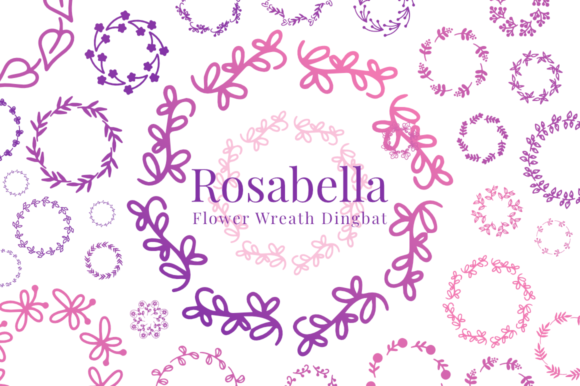
Introducing Rosabella Font, the crowning jewel of your design arsenal. This enchanting dingbats font, meticulously crafted by Letterayu, is a symphony of elegance and versatility. With its intricate strokes and captivating glyphs, Rosabella promises to transform your creative visions into masterpieces.
Unleash the boundless potential of Rosabella and let your imagination soar. Its delicate charm is ideally suited for wedding invitations, adding a touch of whimsical romance to your special day. Envision your names entwined in a heart, surrounded by delicate flourishes that whisper of love and commitment. Rosabella captures the essence of love and celebration.
But Rosabella's allure extends far beyond the realm of matrimony. Its versatility knows no bounds, making it an indispensable asset for a myriad of design projects. Whether you're creating social media graphics, branding materials, or simply adding a touch of whimsy to your personal correspondence, Rosabella will elevate your creations to new heights.
Immerse yourself in the world of Rosabella, where creativity flourishes. Let its intricate details captivate your audience and leave a lasting impression. Its unique style will set your designs apart, ensuring that they stand out from the mundane.
Join the ranks of discerning designers who have embraced Rosabella's magic. Let it weave its enchanting spell on your next project and witness the transformation from ordinary to extraordinary. Embrace the allure of Rosabella today and unlock the gateway to creative excellence.